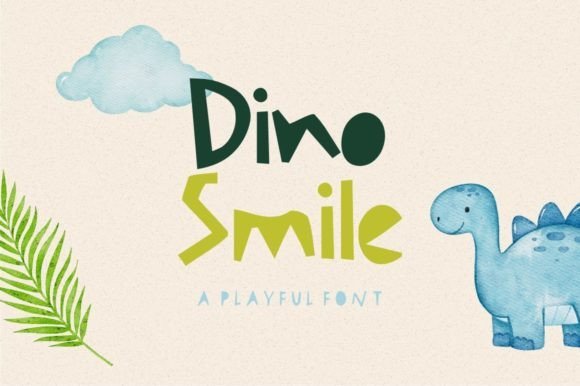
The Perfect Dose of Whimsy for Your Designs
Who hasn’t felt the urge to create something magical at 3 am, fueled by a cup of coffee and a spark of inspiration? It’s moments like these that remind us why we love being designers – the thrill of bringing a concept to life, of making something beautiful and unique. And for those times when you need a little extra help making your ideas shine, there’s the Dino Smile Font – a playful handwritten typeface that’s sure to put a smile on your – and your clients’ – faces.
This delightful font is perfect for adding a touch of whimsy to your headings, logotypes, book covers, and more. Its unique, sweet, and lovely style makes it a valuable asset for designers looking to add some personality to their projects. With the Dino Smile Font, you’ll be able to create designs that are both eye-catching and memorable, making it a must-have for any creative’s toolkit.
Dino Smile Font Key Features
- Font Family: Dino Smile is a unique, hand-drawn font that offers a fun and playful aesthetic.
- Character Set: Includes a comprehensive set of characters, including uppercase and lowercase letters, numbers, and punctuation marks.
- Unique Characteristics: Dino Smile features a distinctive, childlike smile in the uppercase letter “O”, adding a touch of whimsy to any design.
Dino Smile Font Review
Overall, I think the Dino Smile Font is a unique and playful addition to any design project. It works well in situations where you need to add a touch of whimsy and fun. ✨ The font’s irregular shapes and varying line weights give it a handmade feel that can be very charming.
Here are some specific things that I think work well:
- The font’s expressive nature makes it perfect for use in headings and titles.
- The Dino Smile Font has a wide range of weights and styles, which makes it easy to use in various contexts.
- It’s a great choice for designers who want to create a fun and playful atmosphere in their designs.
However, there are some limitations to keep in mind:
- The font’s irregular shapes can make it difficult to read at small sizes.
- It may not be suitable for use in formal or professional contexts.
- The font’s varying line weights can make it difficult to achieve consistent spacing.
Overall, I think the Dino Smile Font is a fun and unique choice for designers who want to add some personality to their projects. However, it’s not without its limitations, and designers should be aware of these before using it.
For the best results, use Dino Smile Font for headings, titles, and other eye-catching text elements. It’s ideal for children’s books, party invitations, and other creative projects. Experiment with different font sizes and colors to add visual interest.